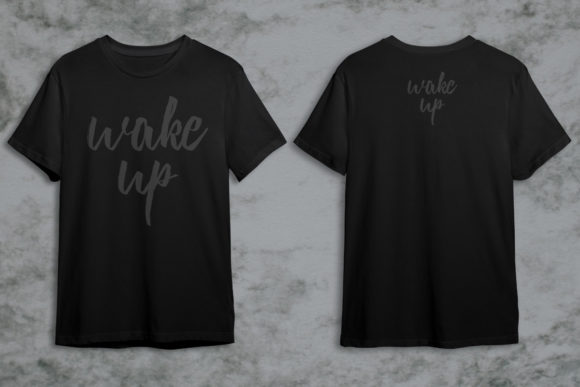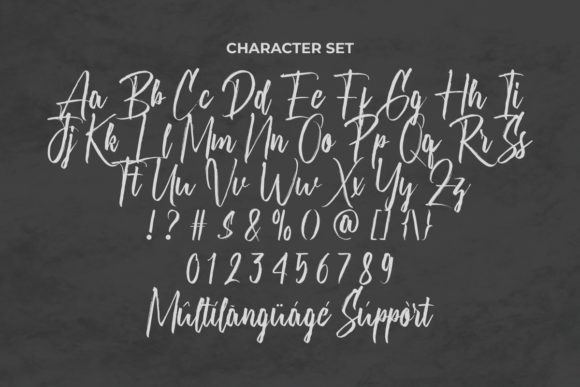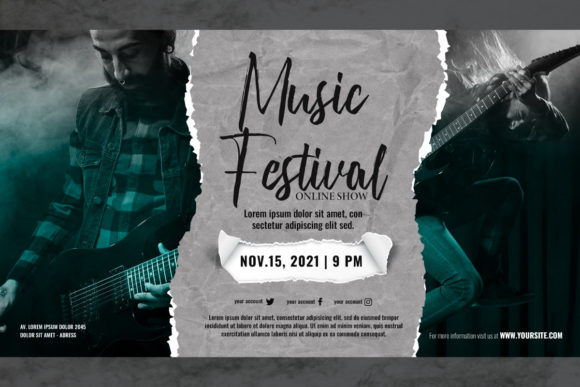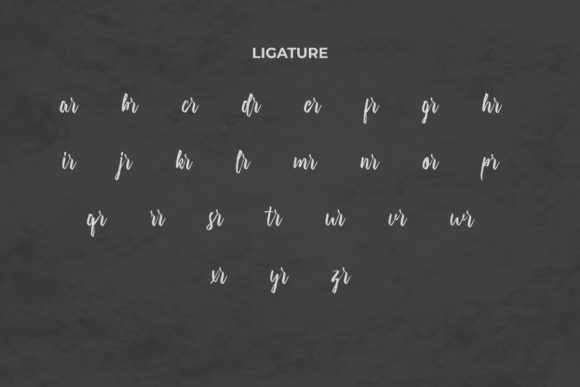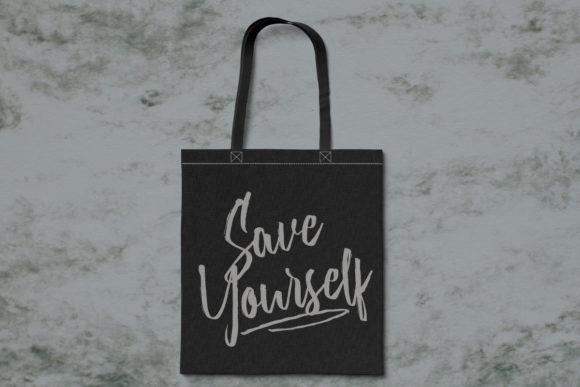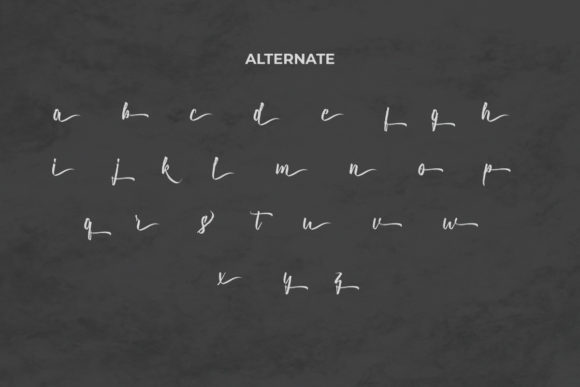
Introduction to Sanpedro Font Font
Fonts play a crucial role in design, and the Sanpedro Font font is a typeface that brings both character and versatility to any project. Whether you’re working on a branding project, a website, or a print design, the Sanpedro Font font offers a unique style that can elevate your work.
Sanpedro is a relaxed, trendy and brushed script font.
Key Features of Sanpedro Font Font
Why Choose Sanpedro Font Font?
The Sanpedro Font font is more than just a typeface – it’s a design tool that helps you communicate your message with style and clarity. Its unique character set and versatile design make it suitable for a wide range of applications, from elegant invitations to bold headlines.
With its carefully crafted letterforms and balanced proportions, the Sanpedro Font font ensures readability and visual appeal across all mediums.
What makes Sanpedro Font font special?
The Sanpedro Font font stands out with its unique design, exceptional readability, and versatility across various design applications.